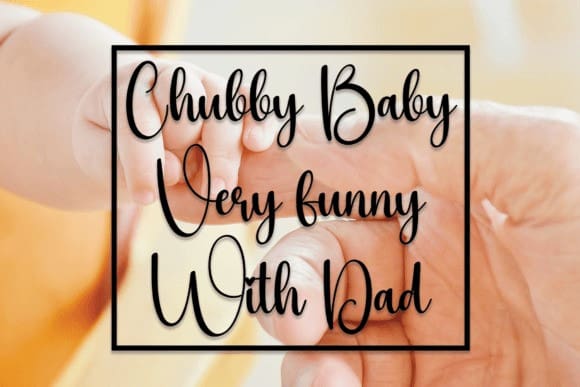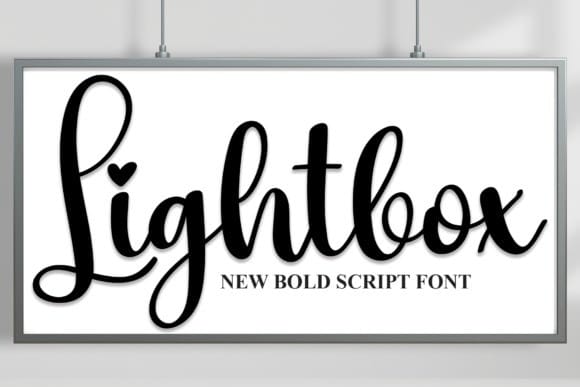
Lightbox Script Font
Lightbox Script Font, perfect for wall displays, wedding invitations, social media post logos, advertisements, product packaging, product designs, labels, photography, watermarks, invitations, stationery, and any project that requires a handwritten taste.